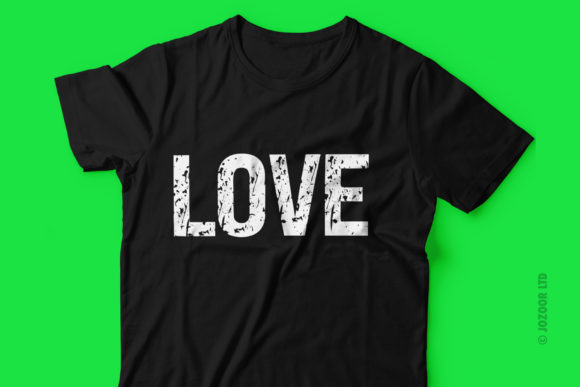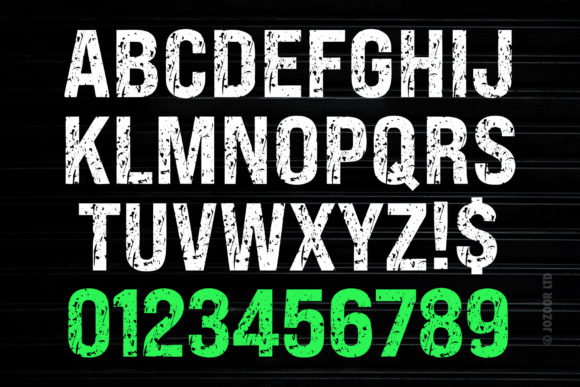
Introduction to Distress College Grunge Font
Do you remember that moment when a perfect font came together with your creative vision, and your project suddenly transformed from ordinary to extraordinary? For designers, finding the right font can be the difference between a good design and a great one. If you’re on the hunt for a unique and eye-catching font that will elevate your creative projects, look no further than the Distress College Grunge Font.
Key Features of Distress College Grunge Font
- Unique, distressed texture design with a college grunge aesthetic, perfect for creative projects and design resources.
- Features a distressed, grunge-inspired texture that adds a unique touch to any design project, from posters to digital art.
- Perfect for adding a distressed, retro vibe to your design projects, including album art, posters, and more.
Honest Review: Distress College Grunge Font
I recently stumbled upon the Distress College Grunge Font, and I must say it’s a great addition to any designer’s toolkit. As a designer, I’m always on the lookout for unique and high-quality design resources to elevate my creative projects. This font definitely fits the bill.
What works well: ✨ The Distress College Grunge Font has a fantastic distressed texture that gives it a worn, vintage look. It’s perfect for adding a touch of nostalgia to your designs. The font is also incredibly versatile, and it can be used for a wide range of creative projects, from social media graphics to posters and flyers.
Limitations: ⚠️ While the font is generally well-designed, I did notice that the texture can sometimes be a bit overwhelming. It’s also worth noting that the font may not be suitable for all types of projects, particularly those that require a clean and minimalist look.
Overall, I’m really impressed with the Distress College Grunge Font. It’s a great addition to any designer’s toolkit, and it’s perfect for adding a touch of creativity to your designs.
The Distress College Grunge Font is ideal for creative projects such as music posters, band flyers, and album art. It’s also great for designing websites, social media graphics, and marketing materials that require a unique and edgy look.